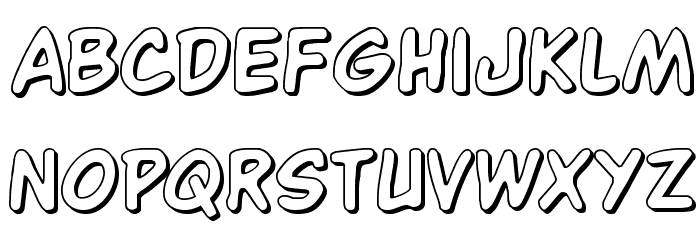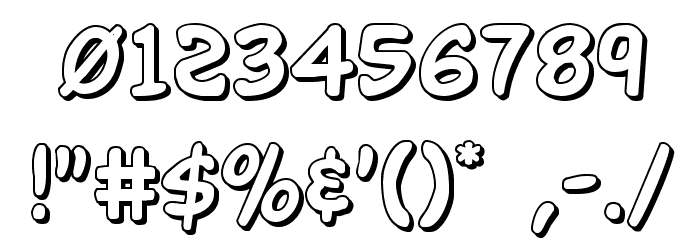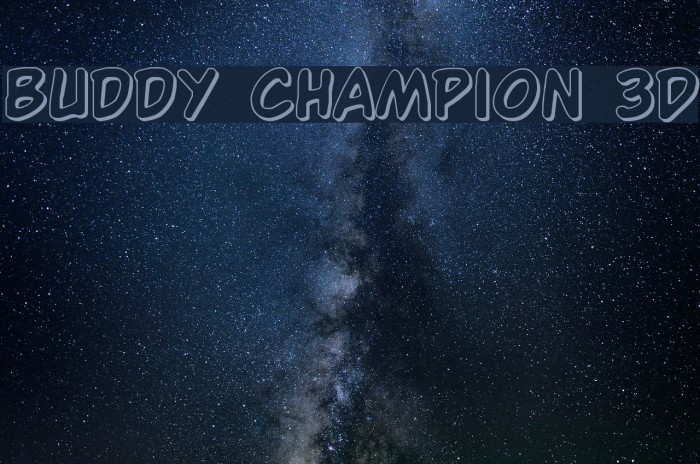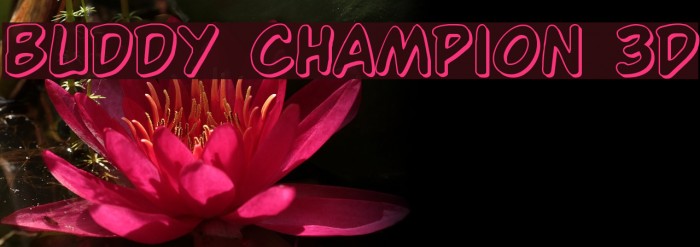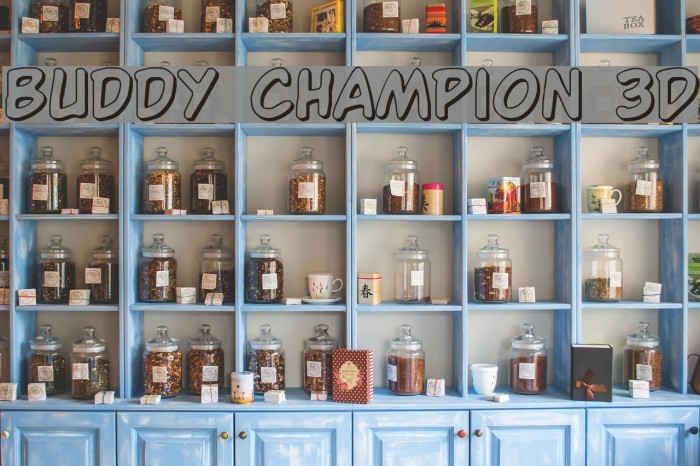
Buddy Champion 3D Font
This playful and bold font features a 3D outline style that gives it a dynamic and eye-catching appearance. The letters are rounded and slightly inflated, creating a sense of fun and whimsy. The consistent stroke width and smooth curves contribute to its approachable and friendly look. The font includes a full set of uppercase and lowercase letters, numbers, and a variety of special characters, making it versatile for various design needs. Its unique style is perfect for projects that require a touch of creativity and boldness.
A playful 3D outline font with rounded, inflated letters.
- Proposed Projects: Ideal for children's books, playful branding, posters, and creative digital content.
- Overall Style: Playful, Fun, Creative